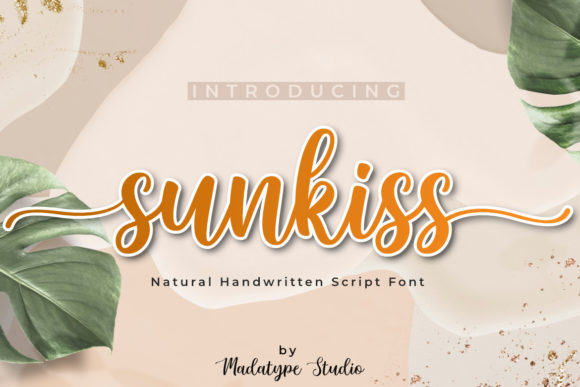
Enter the enchanting world of Sunkiss Font, a captivating script font that exudes grace, elegance, and a touch of modern charm. This exquisite creation from Madatype Studio is a visual masterpiece that will add a touch of sophistication to your creative projects.
With its flowing curves, delicate serifs, and undeniable beauty, Sunkiss Font is the perfect choice for those seeking a font that speaks volumes. Its versatility knows no bounds, making it an ideal companion for logos, branding, invitations, stationery, wedding designs, social media posts, and more. Let your creativity soar as you witness how effortlessly Sunkiss Font transforms your designs into captivating works of art.
Step into the realm of elegance and refinement with Sunkiss Font. Its timeless appeal will elevate your designs to new heights, leaving a lasting impression on your audience. Whether you're a seasoned designer or just starting your creative journey, Sunkiss Font is the perfect tool to make your projects shine.
Unleash the power of Sunkiss Font and watch as your designs blossom into enchanting creations. Its PUA encoding ensures effortless access to a treasure trove of glyphs and swashes, empowering you to add intricate details and flourishes that captivate and inspire.
Join the ranks of creative visionaries who have discovered the magic of Sunkiss Font. Let your imagination run wild as you craft designs that resonate with beauty and elegance. Experience the transformative power of Sunkiss Font and see your creative endeavors flourish.